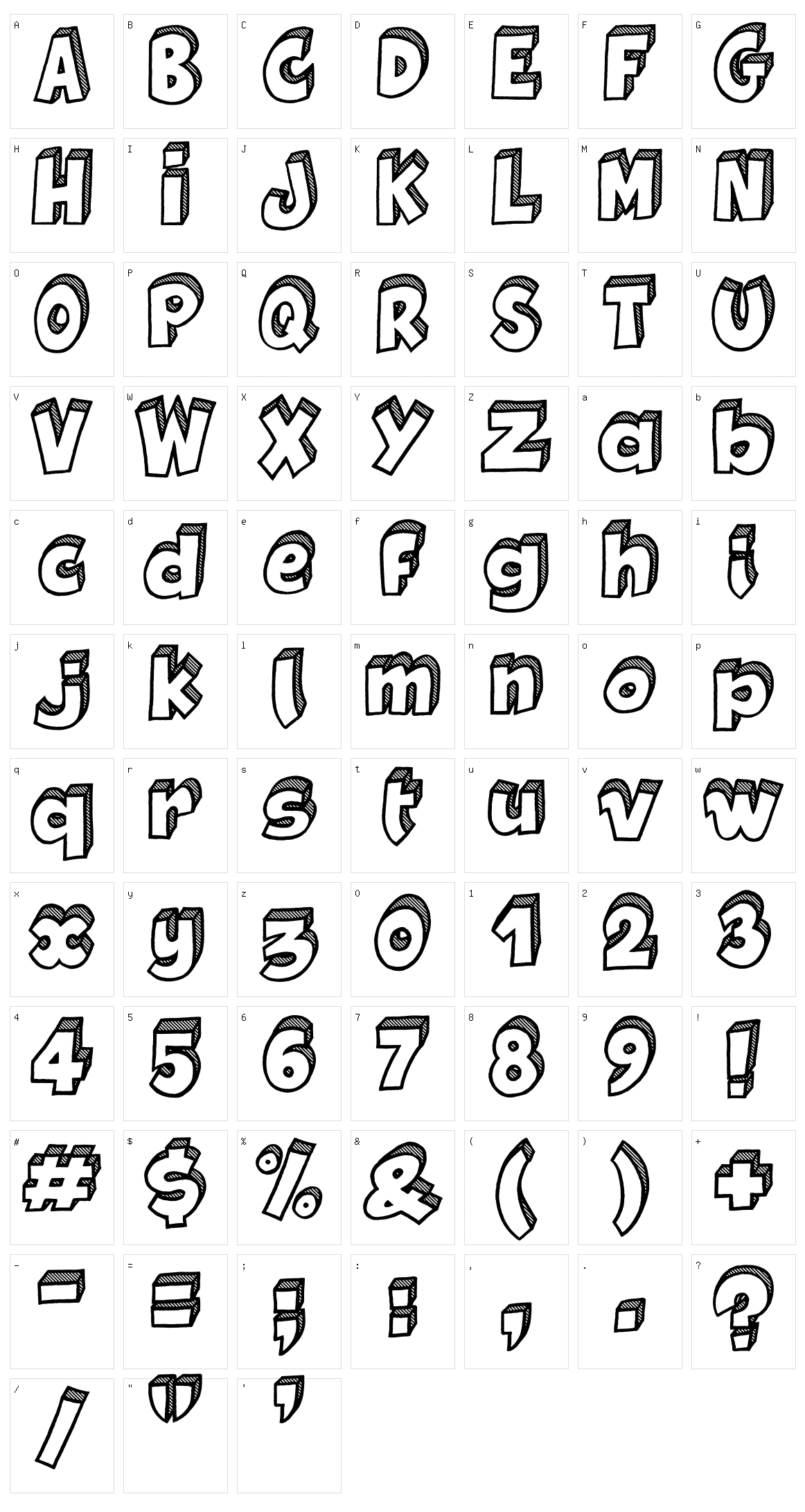
The free font Jackpot is carefully designed by imagex, showcasing a thoughtful balance of creativity and usability and falls under the Cartoon font style. When you download the ZIP file, it contains only 105.85 KB of font files, making it lightweight and quick to download. Please review the license details below to understand permitted usage and distribution rights. If license information is not available, we recommend using this font for personal projects only or contacting the author directly for commercial usage permissions.